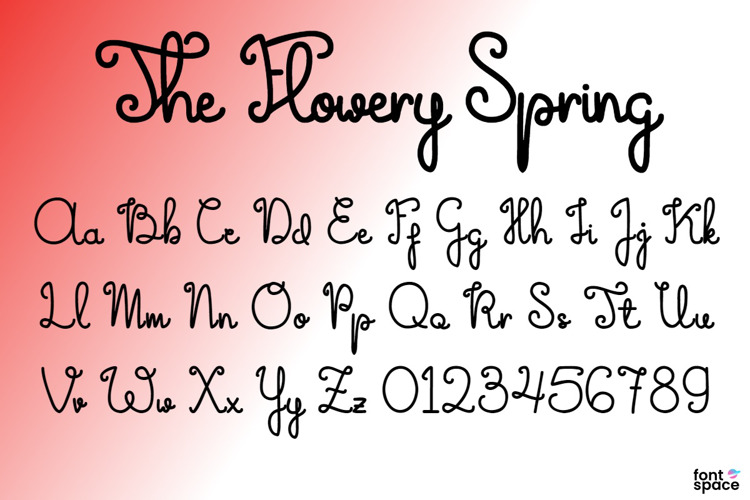
The Flowery Spring Font
Thank you so much for downloading our font.The Flowery spring is handwritten script style font, which suitable for girly, kids, or feminine type project.